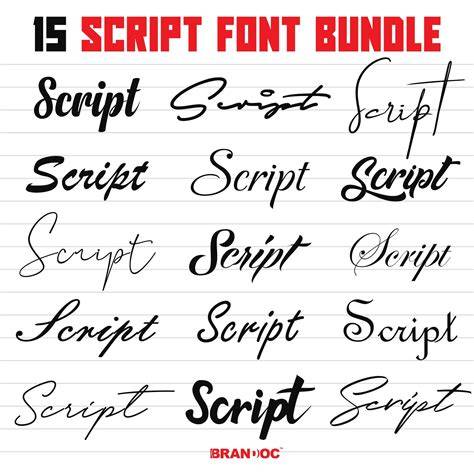
What Are Script Type Fonts?
Script type fonts are a type of font in which the letters and numbers look like they were written by hand. They are usually used for decorative purposes, such as invitations, greeting cards, posters, and logos. Script type fonts can be used to give a more personalized or artistic look to a design. This type of font is often used as a way to add a personal touch to a design and to make it look more unique and sophisticated.
Script type fonts have been around for centuries, but they have become increasingly popular in the last few decades. This is due to the fact that they are very versatile and can be used in a variety of different designs. Script type fonts can be used in a variety of different ways, such as in logos, advertisements, and even website designs. They can also be used to add a more decorative look to a design, such as with wedding invitations or other special occasions.
Script type fonts are often used to add a more formal, elegant look to a design. This type of font is usually used for more formal occasions, such as weddings or anniversaries. They can also be used to give a more sophisticated or vintage feel to a design. This type of font is often used in logos or advertisements and can be used to create a more professional look to a design.
Finding the Best Script Type Fonts
When looking for a script type font, it is important to choose a font that is easy to read and is aesthetically pleasing. There are many different types of script type fonts available and it is important to choose one that is appropriate for the design you are creating. It is also important to choose a font that is easy to read and is visually appealing. This will help to ensure that the design looks professional and is easy to read.
When choosing a script type font, it is important to consider the project you are working on and the overall look of the design. It is important to choose a font that is appropriate for the design and that fits the overall style of the design. It is also important to consider the size of the font, as different sizes can make a design look different. It is important to choose a font that is easy to read and is visually appealing.
Using Script Type Fonts in Your Designs
When using script type fonts in your designs, it is important to ensure that the font is used in a way that compliments the overall design. It is important to avoid using too much of the font in a design, as this can make the design look cluttered and overwhelming. It is also important to choose a font that is easy to read and is visually appealing. This will help to ensure that the design looks professional and is easy to read.
When using script type fonts in a design, it is important to keep in mind that they are generally used for decorative purposes. It is important to choose a font that is appropriate for the design and that fits the overall style of the design. It is also important to choose a font that is easy to read and is visually appealing. This will help to ensure that the design looks professional and is easy to read.